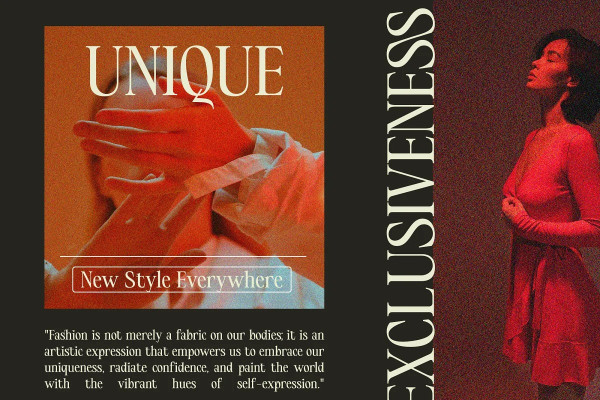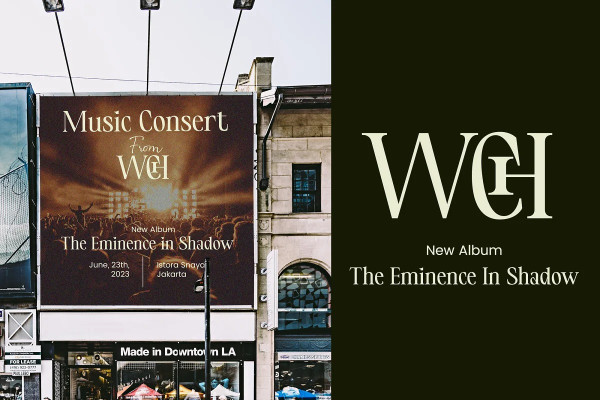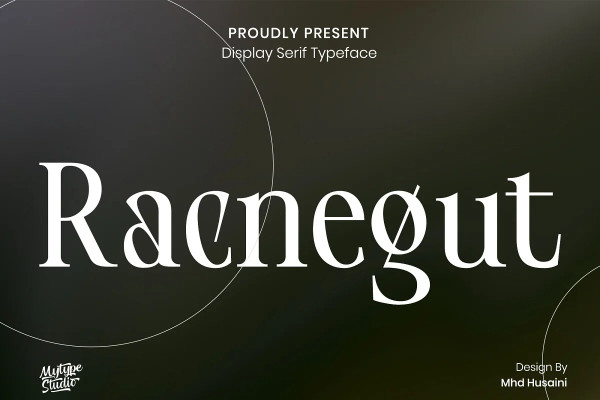
Racnegut Font
Racnegut Font is high contrast serif font features a mixed modern-classic design. Racnegut support multilingual languages, numbers, punctuation and alternative-ligatures. Create unique & amp; beautiful logotype, use it as an elegant solution for your next magazine layout, or choose Racnegut for any graphics that require a sleek look with a elegant flair.